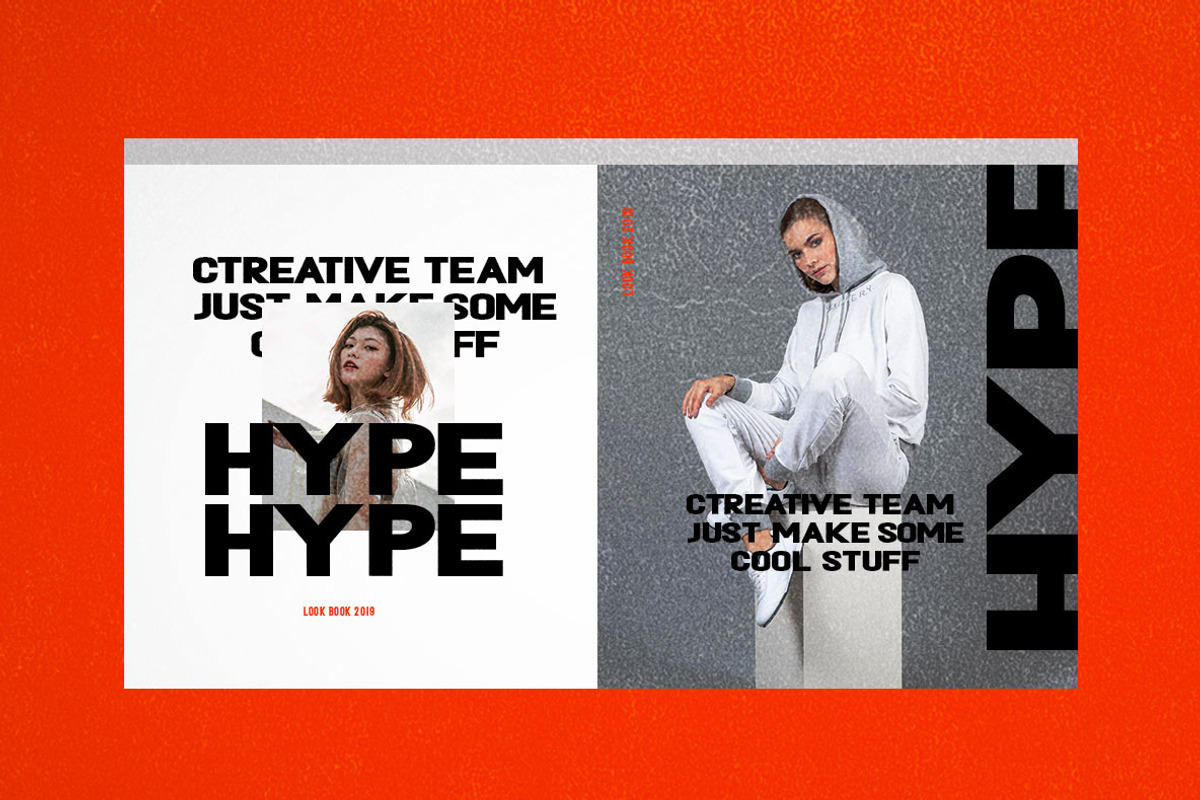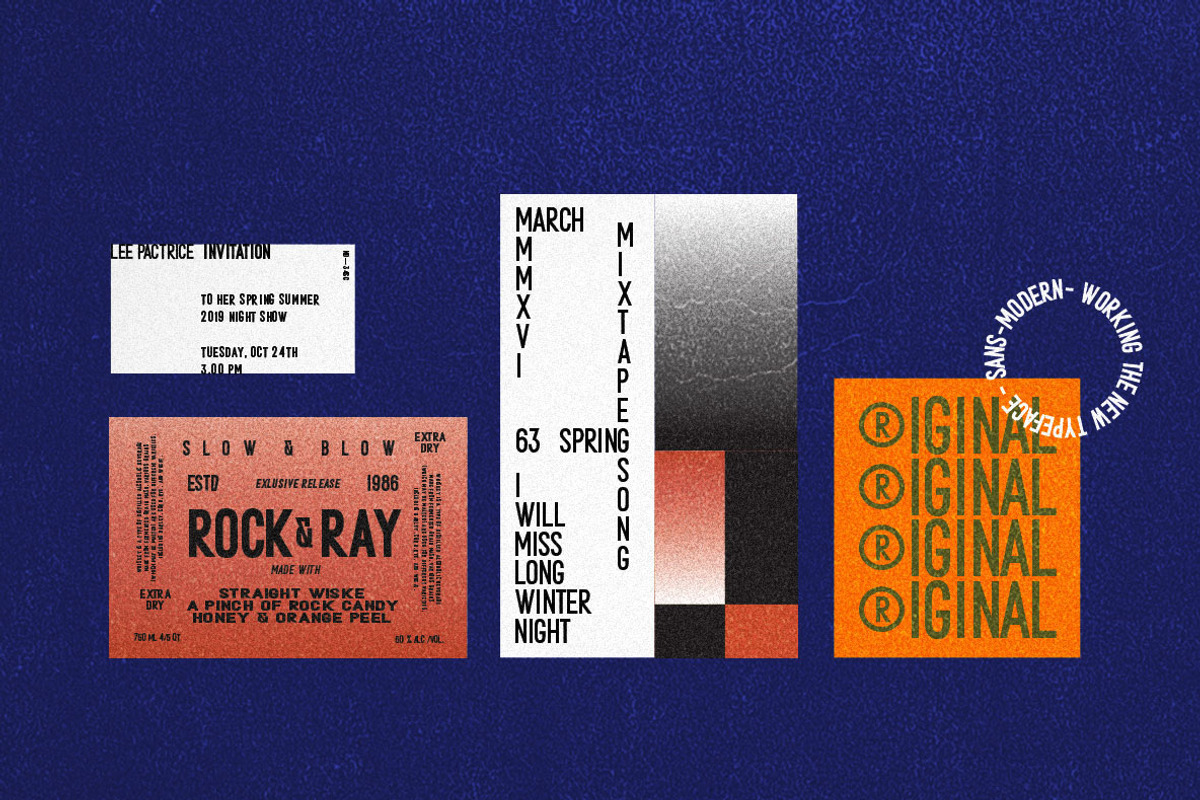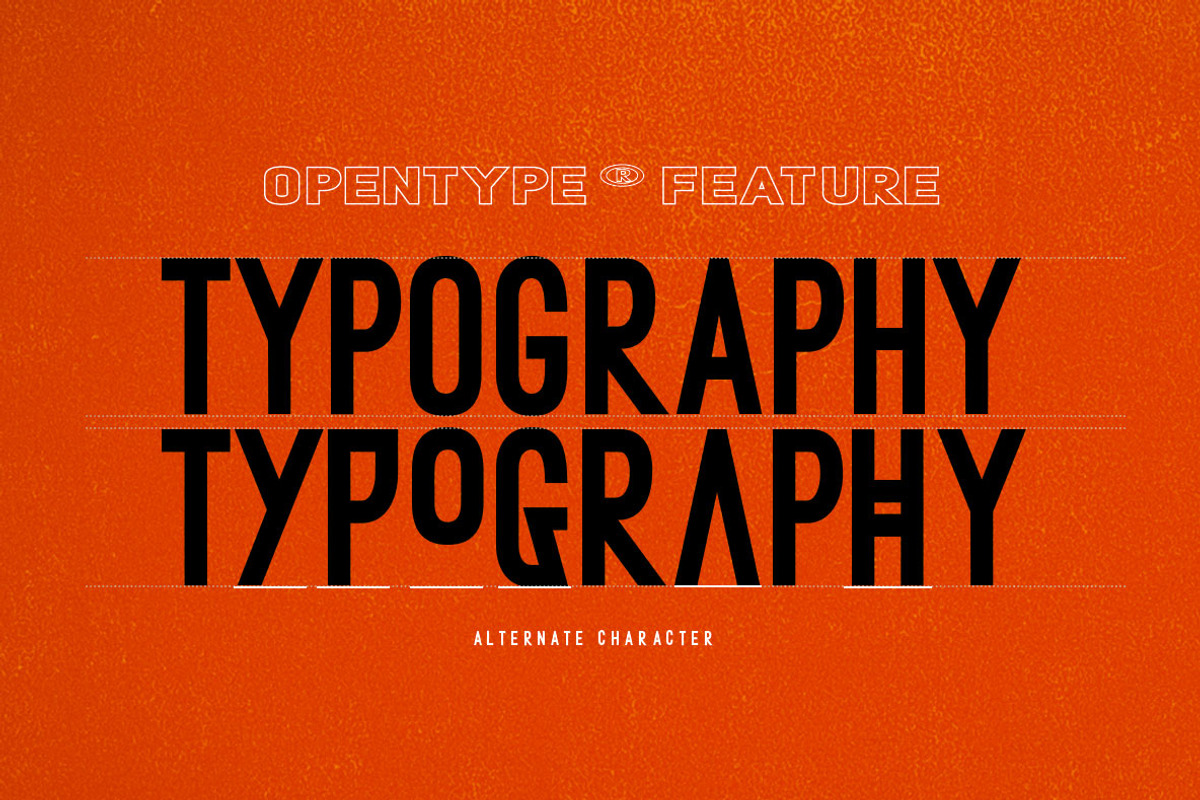
DETAILS Metafora Sans is a contemporary display family with multifunctional workhorse designed to work best in any printed and on screen contexts, including logo design, brand identities, websites, packaging, poster and headline. The Typeface come in 13 weights, with Upright and Oblique each, for a total of 26 styles.
The Feature :
Stylistic Set Alternate Basic Latin A-Z and a-z Numbers Symbols Ligature PUA Encode Multilanguage Support There are additional ways to access alternates, using Character Map (Windows), Nexus Font (Windows), Font Book (Mac) or a software program such as PopChar (for Windows and Mac).